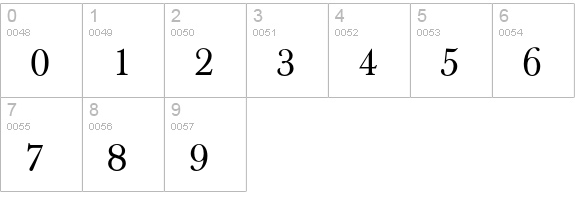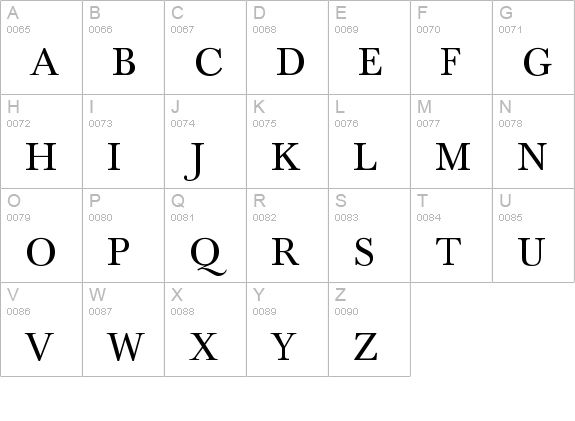
Baskerville T Regular is the standard, neutral variant in the Baskerville typeface family \xE2\x80\x94 well suited to general body text, paragraphs, and standard typographic work.
Baskerville T Regular font is a classic and elegant typeface that exudes sophistication and timelessness. With its clean lines and balanced proportions, this font is perfect for conveying a sense of professionalism and refinement in any design project. The Baskerville T Regular font is versatile and suitable for a wide range of applications, from print materials to digital projects. The best part is that this beautiful font is available for free download at FontsMarket.com. You can easily access and use Baskerville T Regular font in your projects without any cost, making it a valuable resource for designers and creators. Take advantage of this opportunity to enhance your designs with the timeless appeal of Baskerville T Regular font.